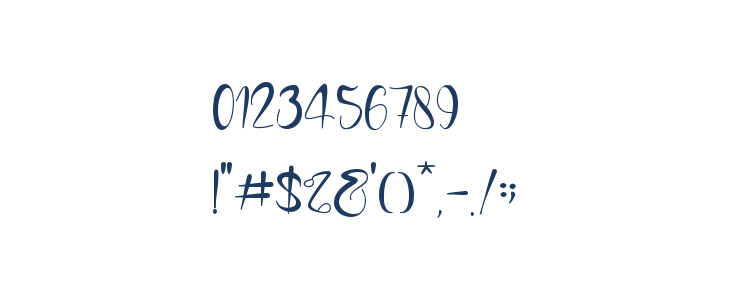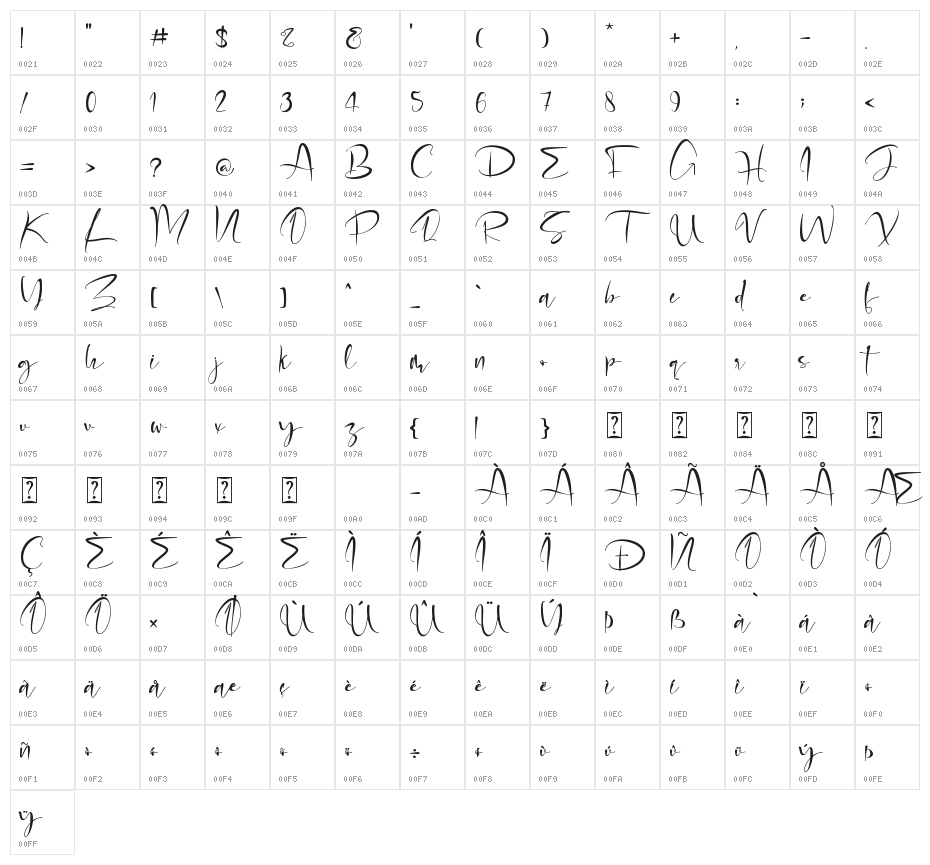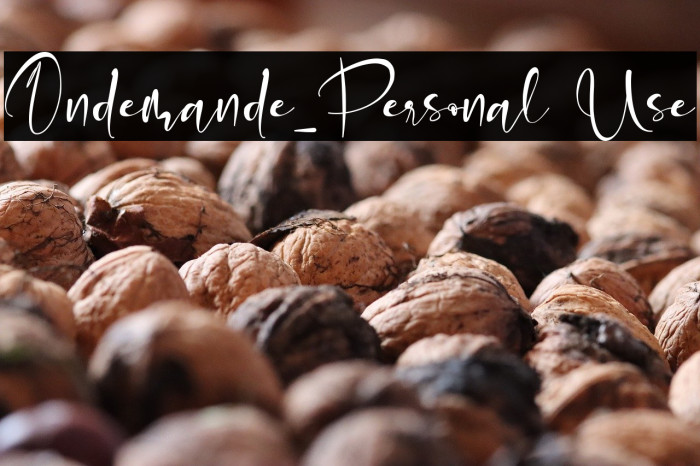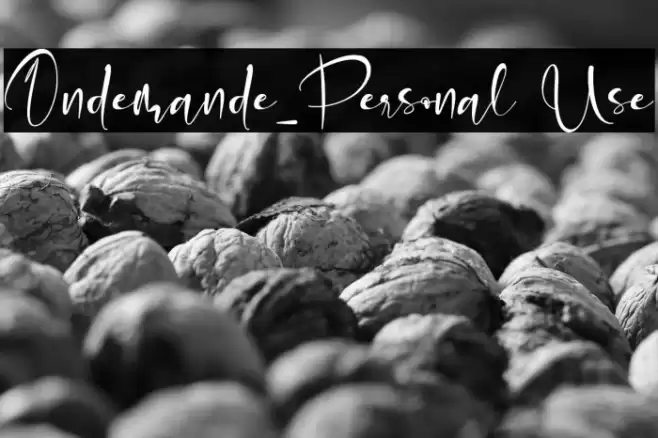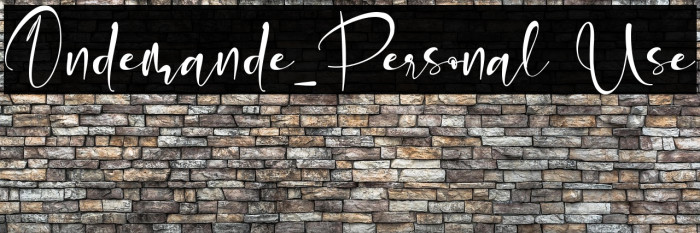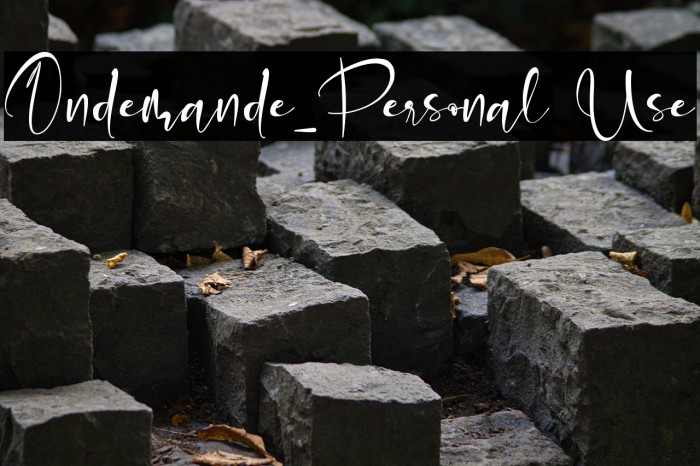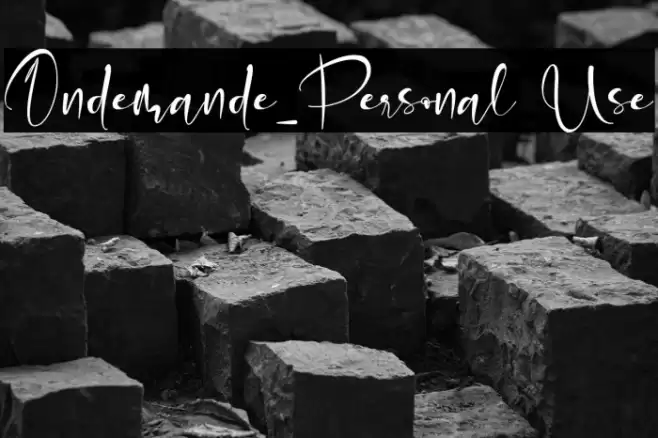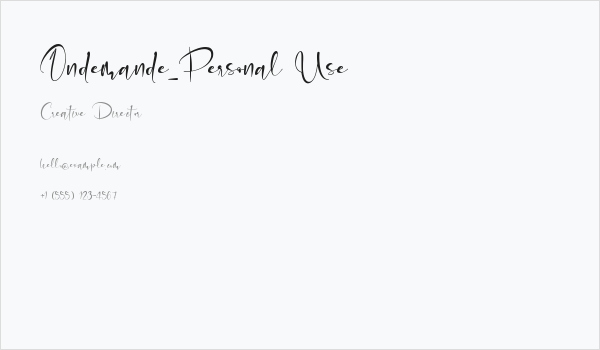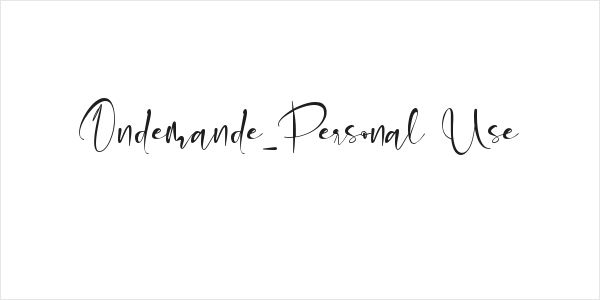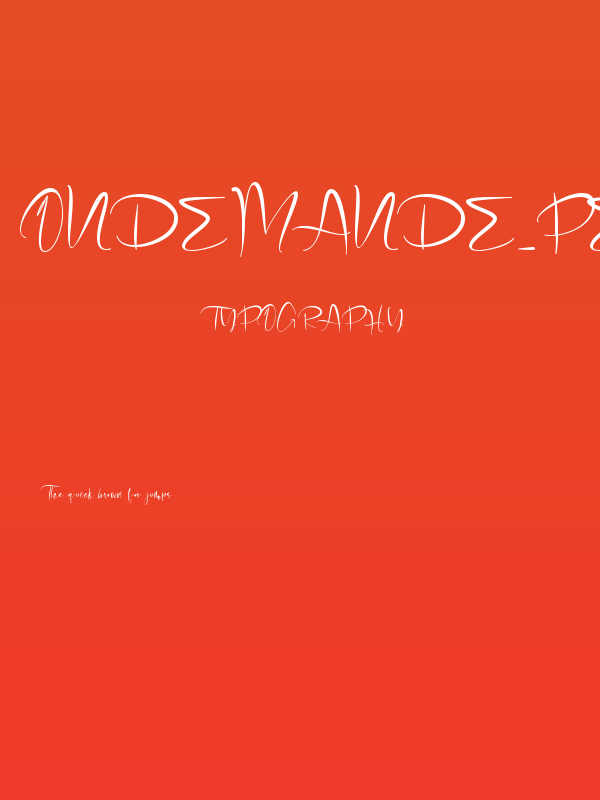
Ondemande_Personal Use Font
Ondemande_Personal Use Description
This font features a dynamic and expressive script style with a handwritten appearance. The uppercase letters are characterized by elegant, sweeping curves and a slightly elongated form, giving them a sophisticated yet playful look. The lowercase letters maintain a consistent flow, with some characters featuring unique loops and flourishes that add to the font's charm. Numbers are bold and clear, maintaining the same fluid style as the letters. Special characters are creatively designed, matching the overall aesthetic of the font. The strokes vary in thickness, providing a medium contrast that enhances readability while maintaining an artistic flair.
| Proposed Projects | Ideal for wedding invitations, greeting cards, branding projects, and social media graphics. |